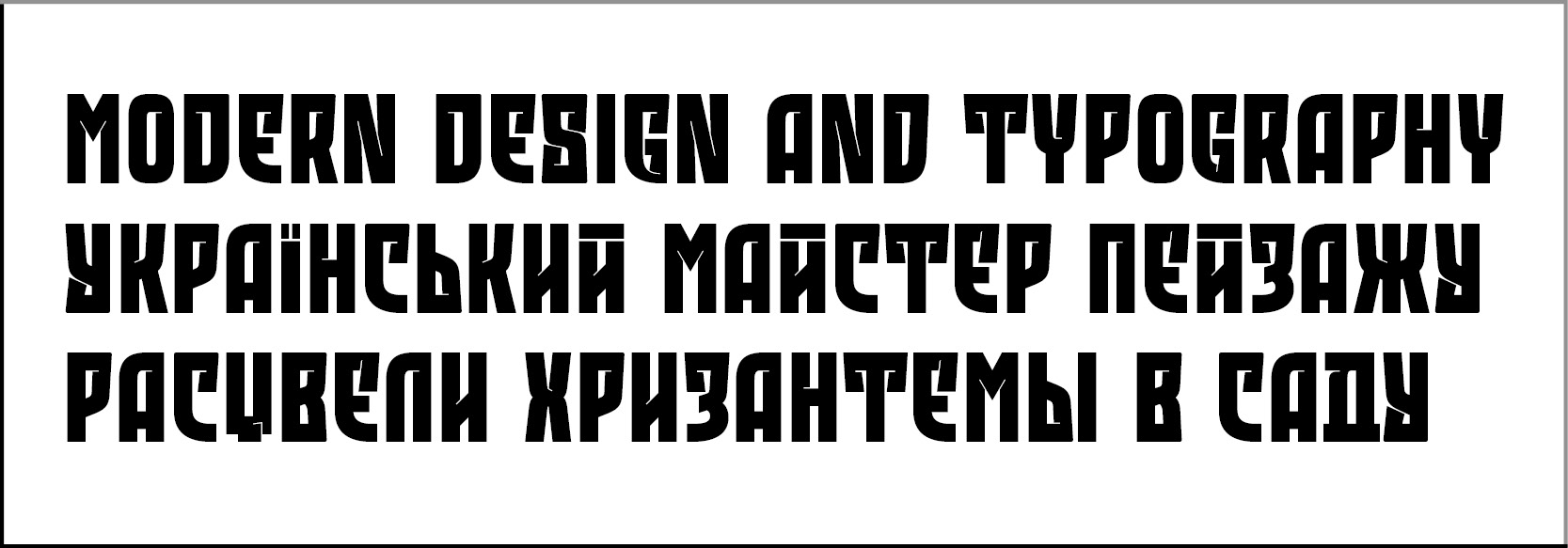
IT Trush Title
Designers: Tetiana Ivanenko
Design date: 2024
Contains Latin, Ukrainian Cyrillic, stylistic sets.
The display font IT Trush Title was created on the basis of the inscription on a stone board of the sculpture department of College of Decorative and Applied Arts after I. Trush (photo by @font.explorer on Instagram).
Small letters have the size of the headlines, but with straight shapes and without insets. Diacritics are lowered to the height of the sign, which allows you to type blocks of text with minimal interlineation.
Purpose: posters, covers, titles, etc.